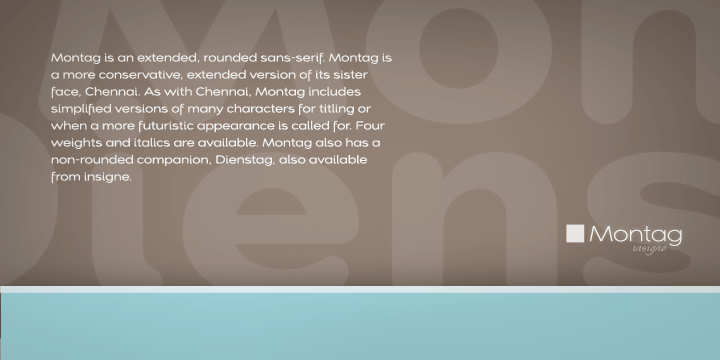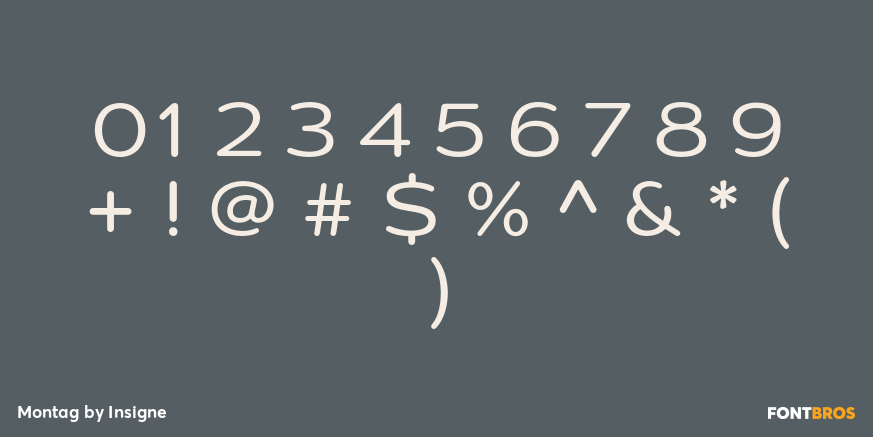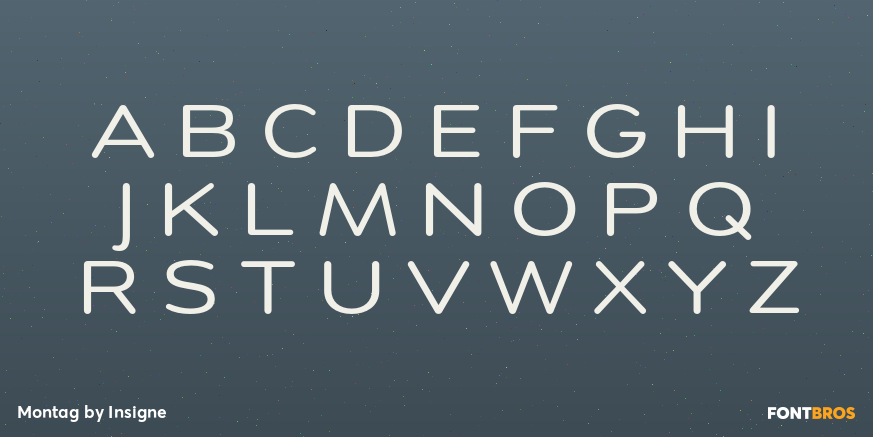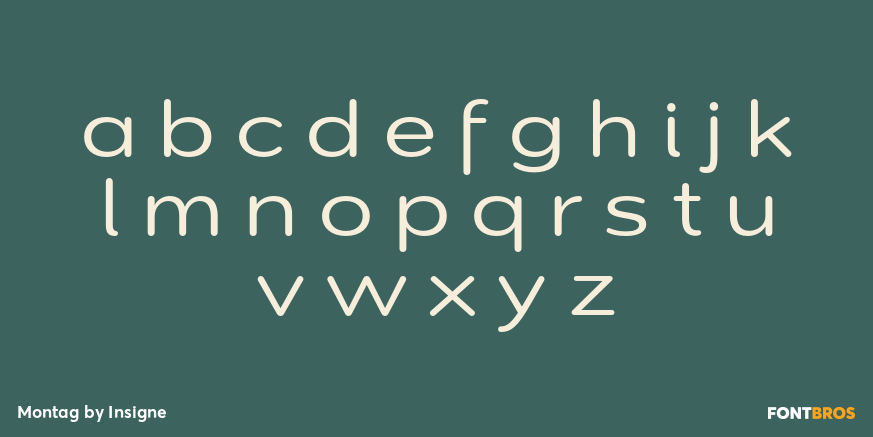
Montag
Font Family by Insigne
Montag is an extended, rounded sans-serif. In many ways it can be seen as a more conservative, extended version of Chennai. As with Chennai, it includes simplified versions of many characters for titling or when a more futuristic appearance is called for.